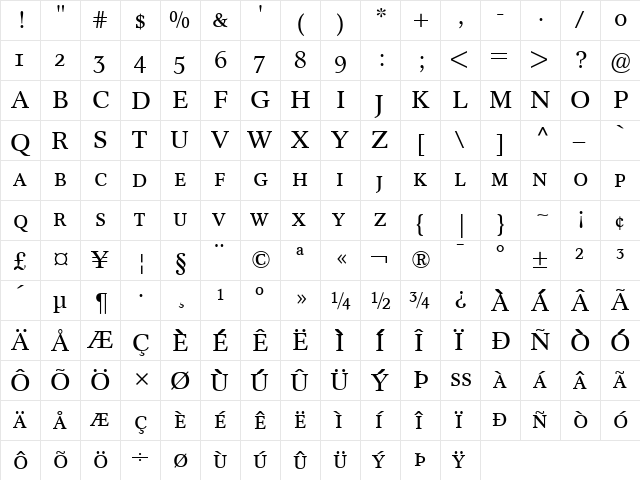
Concorde BE Regular
| Foundry | Adobe Systems Incorporated |
Design Context for Concorde BE Typeface
Concorde BE takes a measured approach to typography — its balanced proportions and neutral character make it a reliable workhorse for both digital and print work.